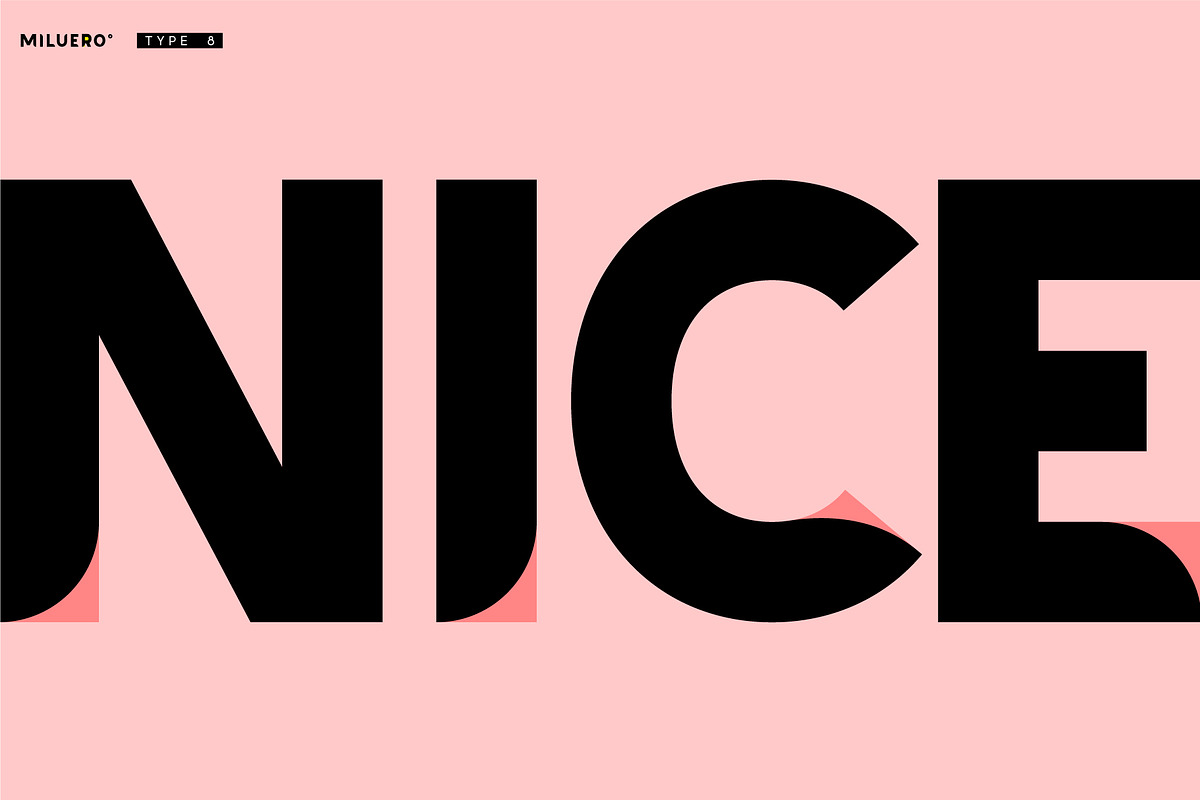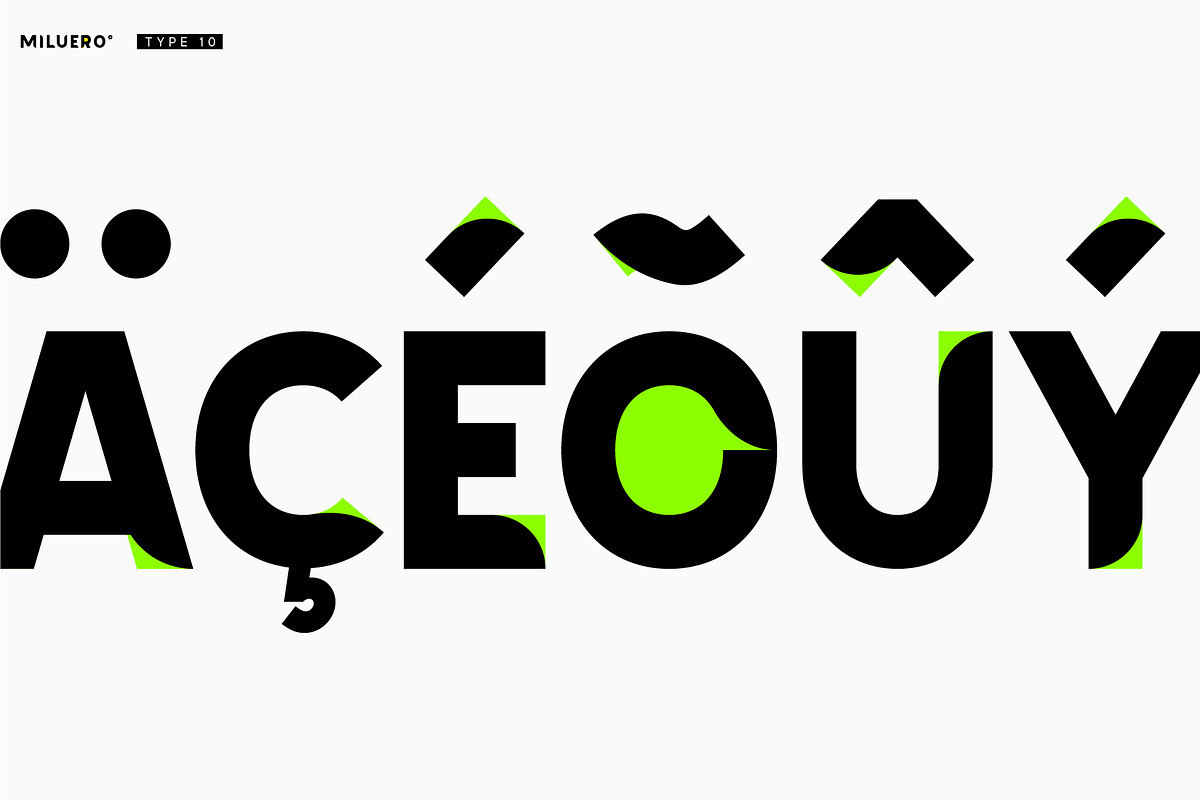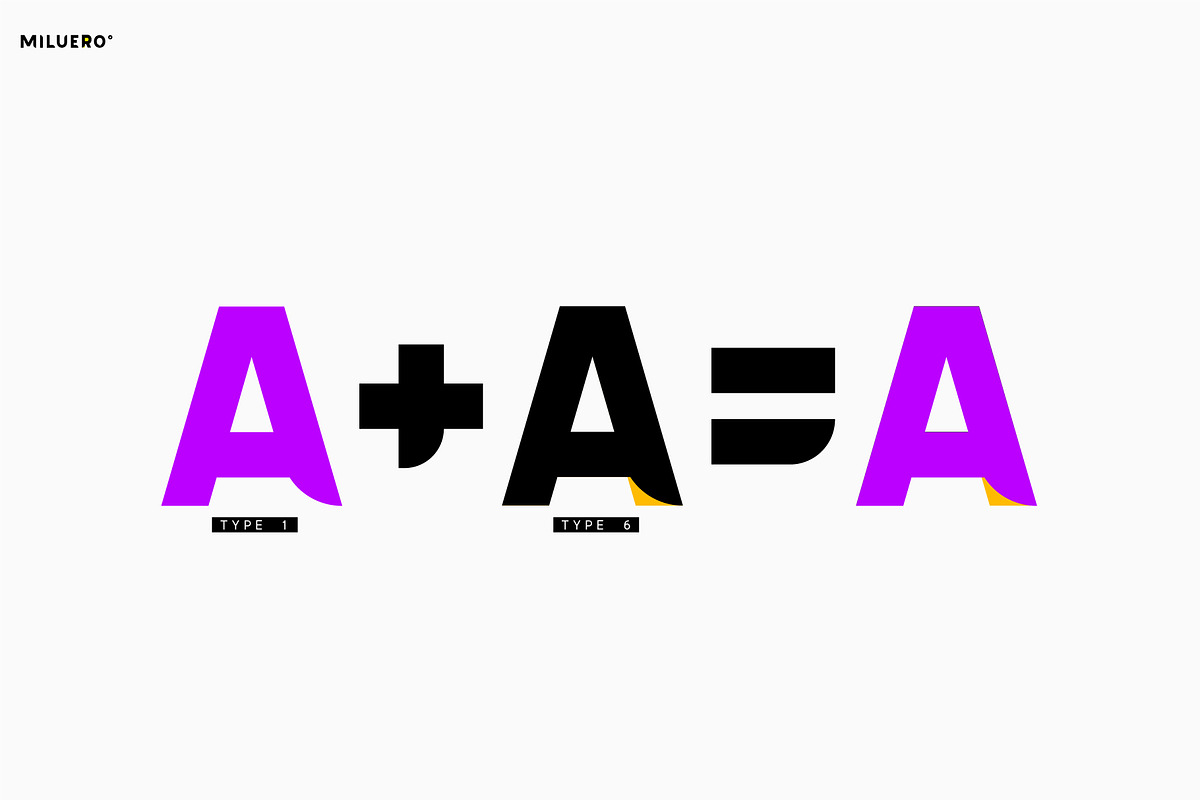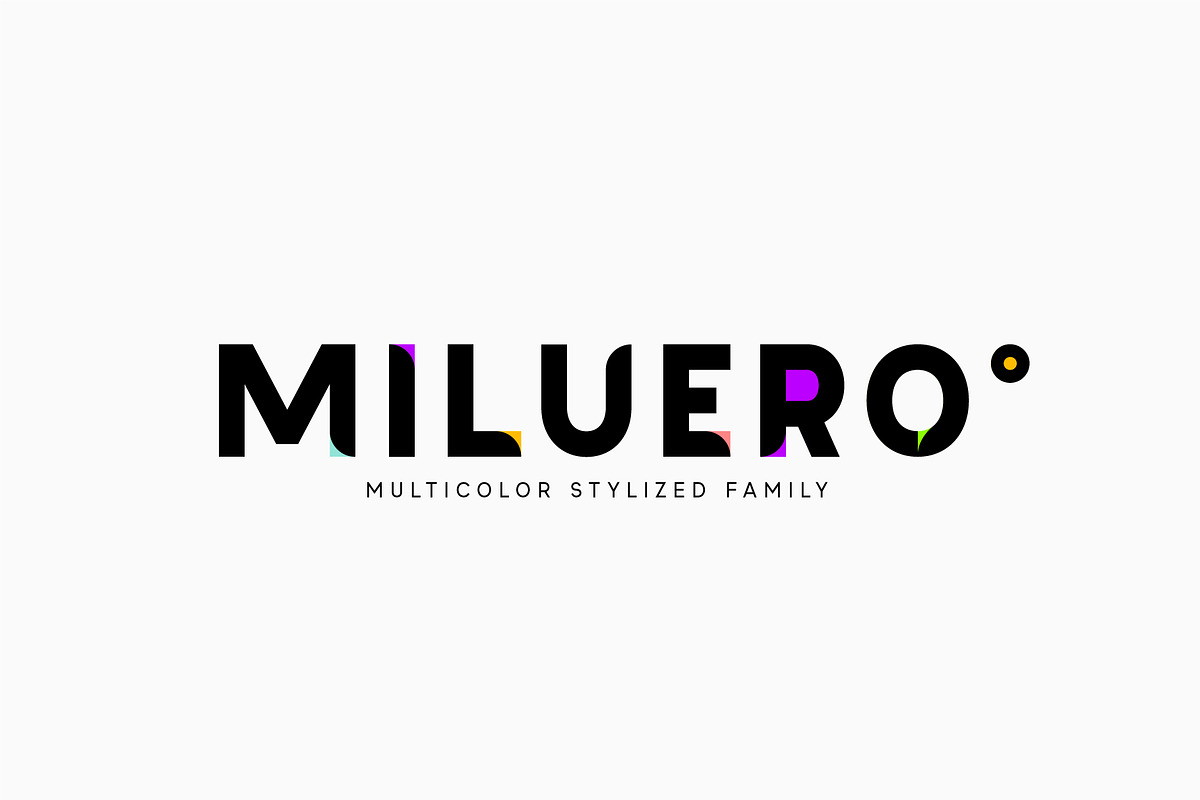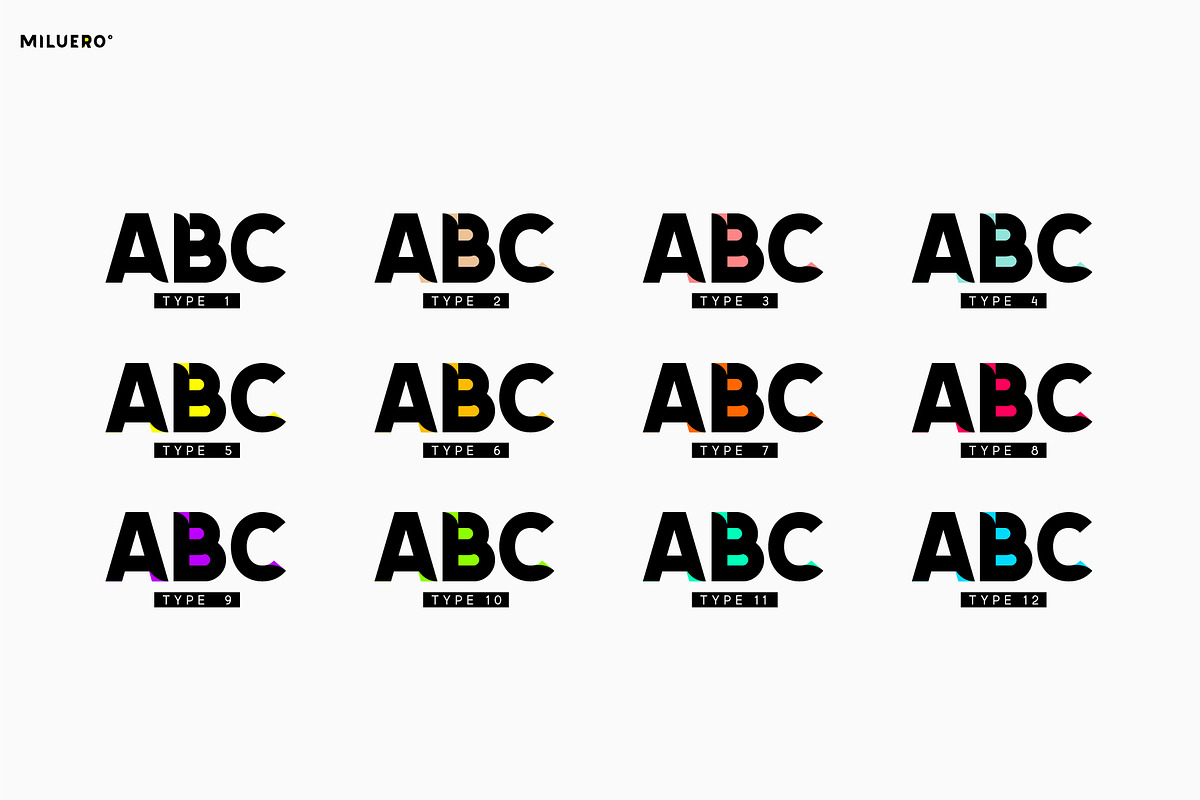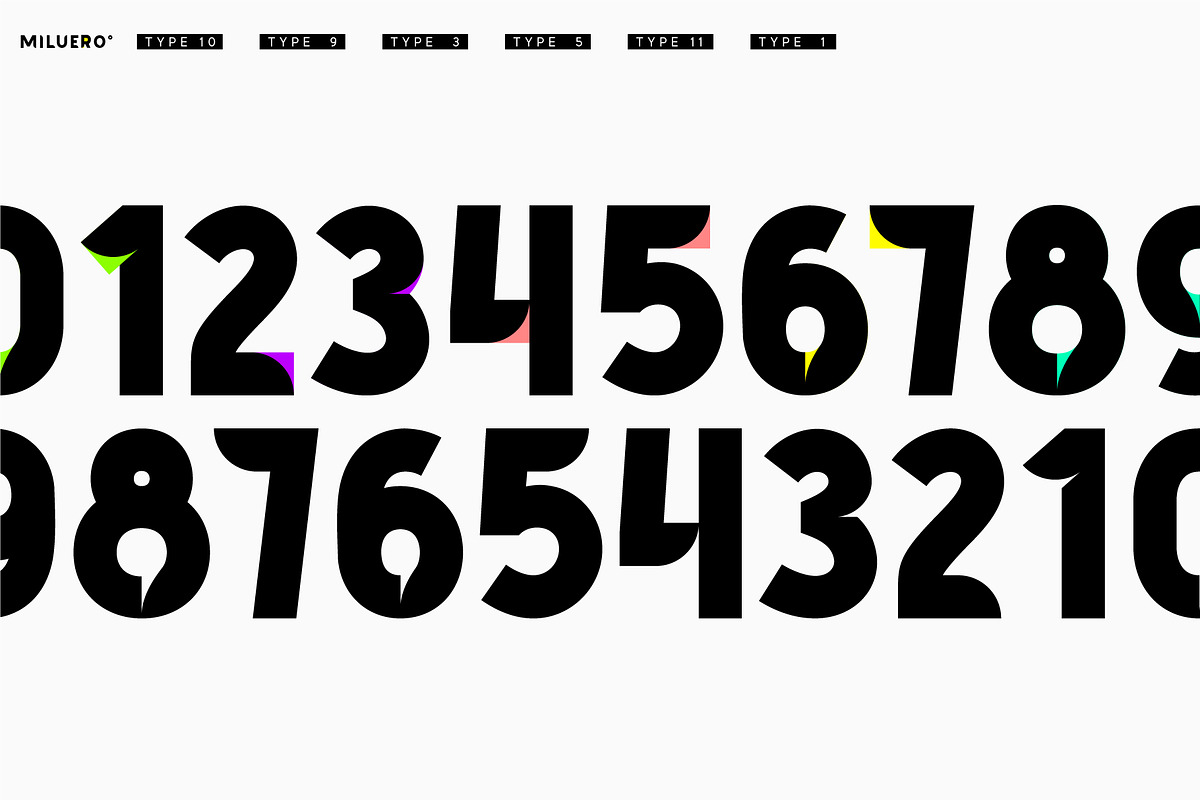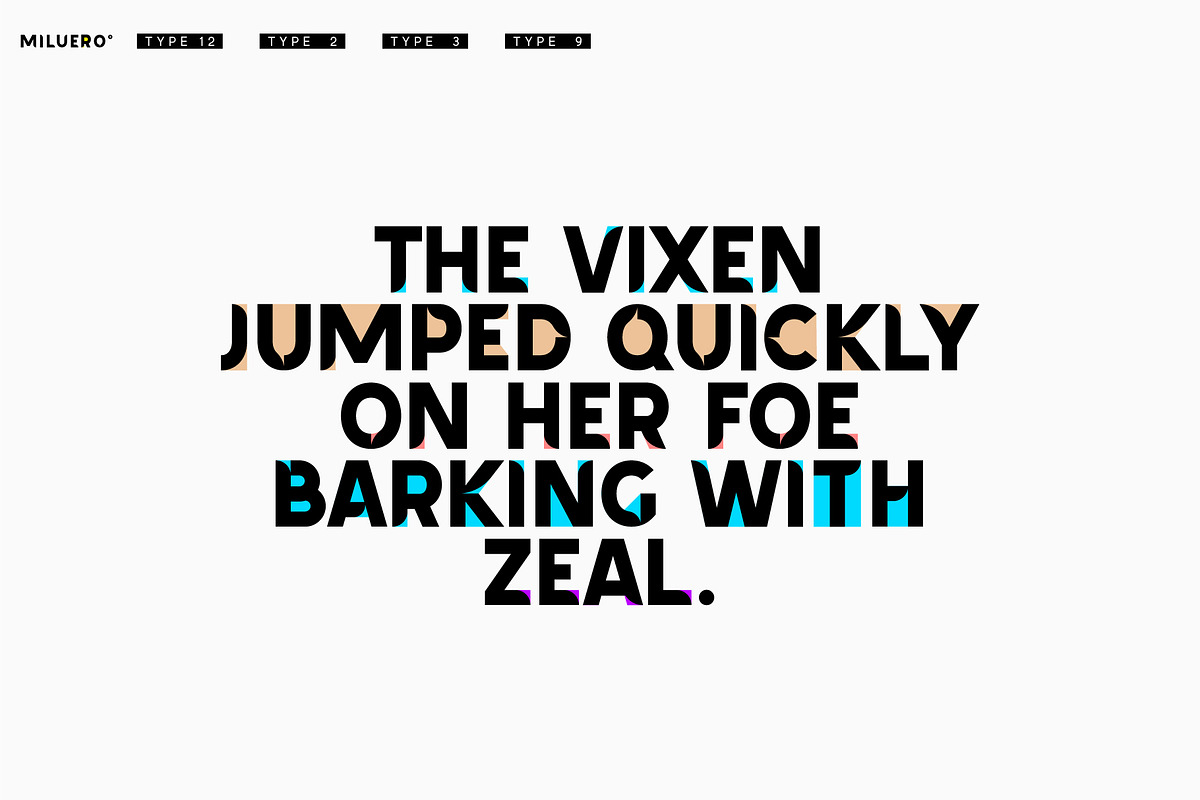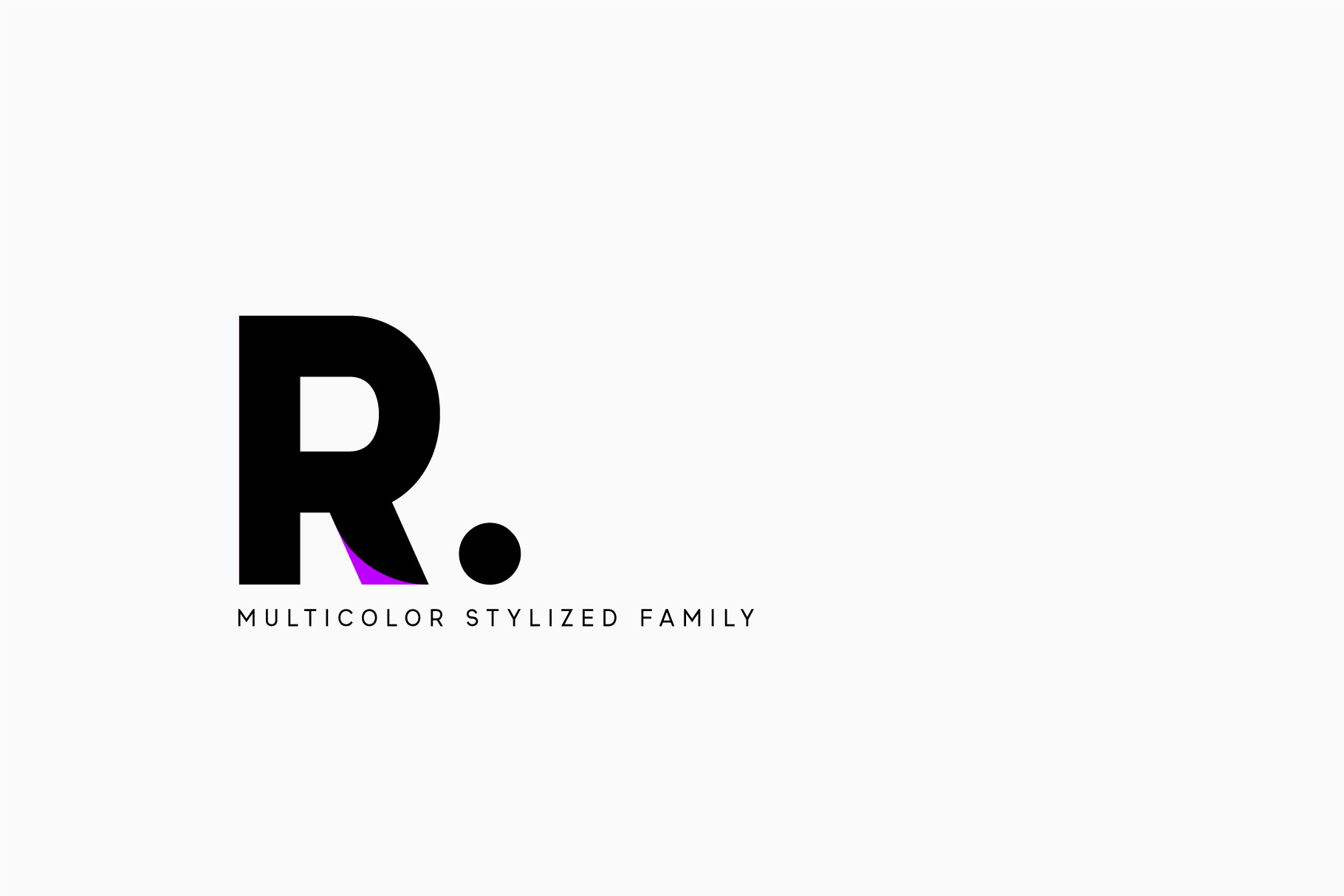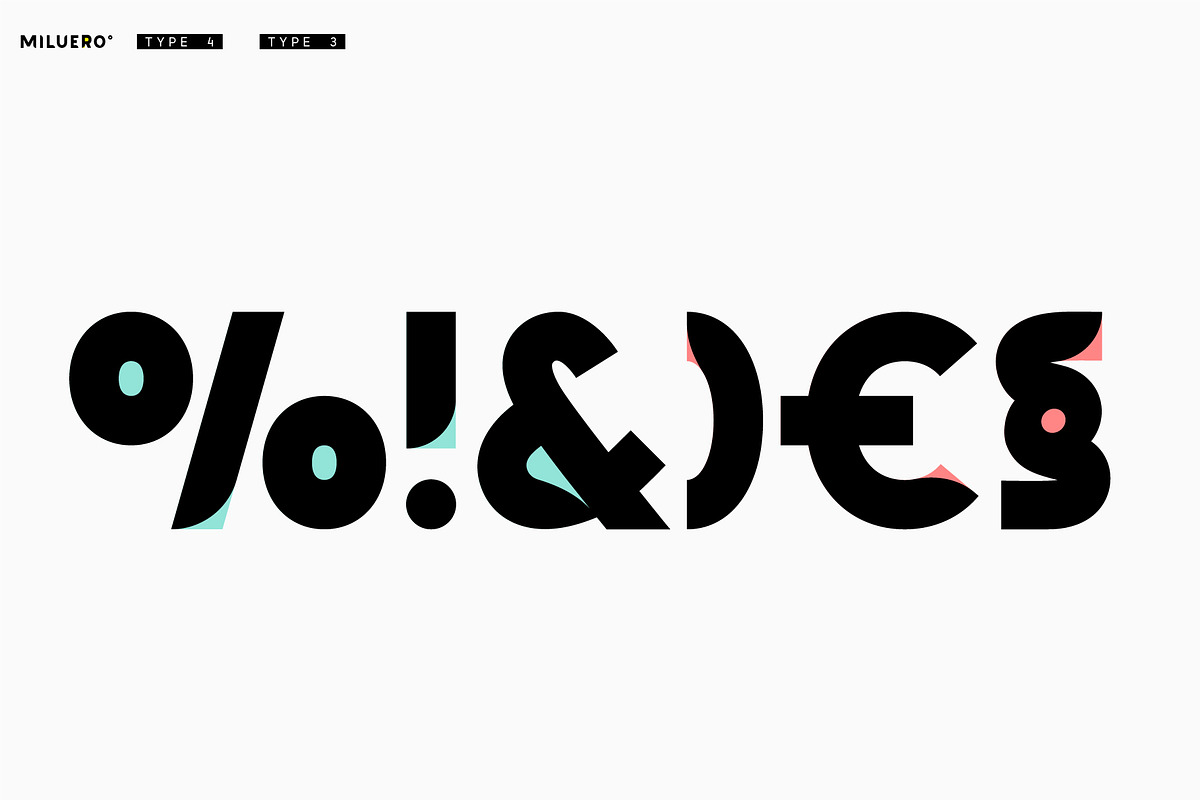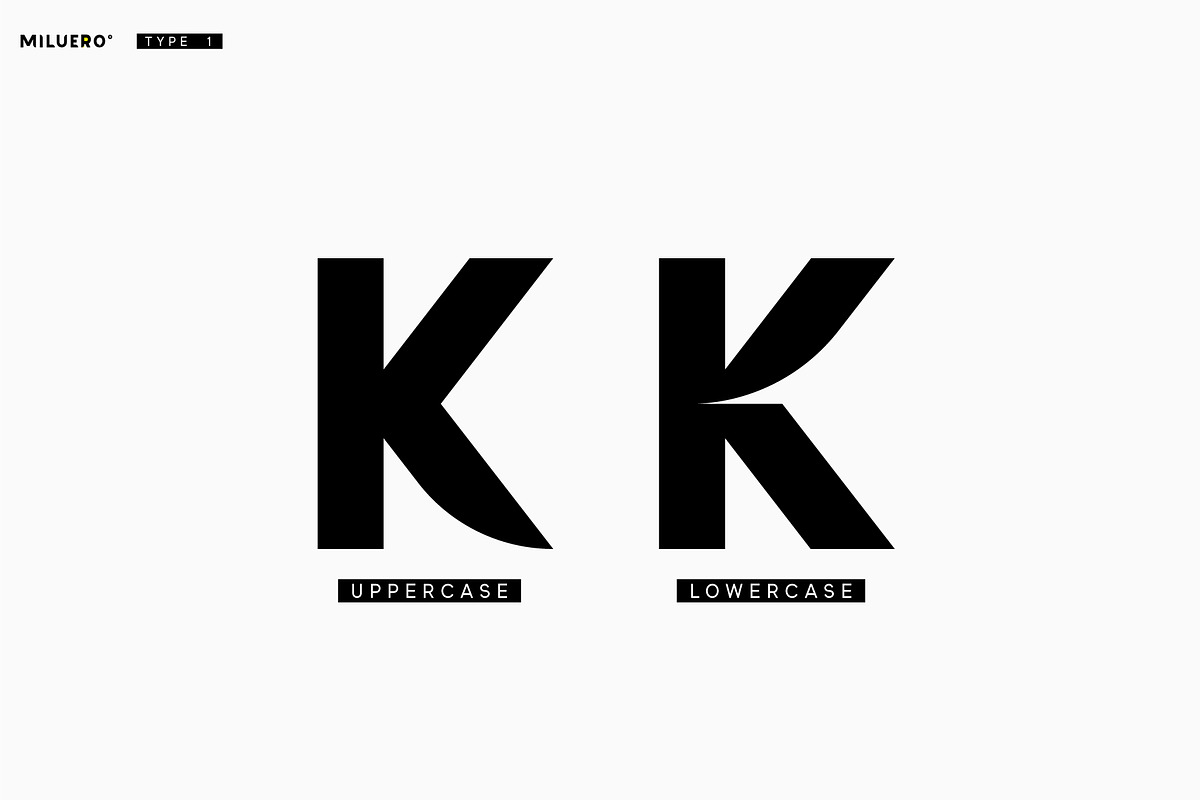
Miluero. Stylized Color OTF-SVF font
Introducing stylized Miluero family. Graceful cut, rounded corners combined with austere shapes. Accent fonts with COLOR padding and a classic basic monochrome version in the set. Perfect for logos, headlines and captions. Looks elegant in a minimalist modern design. An assortment of colors will help you get started quickly.
This font family is based on the Regular font Pacardo - which means that if necessary you can combine these two families and they will be absolutely stylistically identical and complement each other.
- Uppercase and lowercase the same size but different forms.
- Color in letters.
- Kerning.